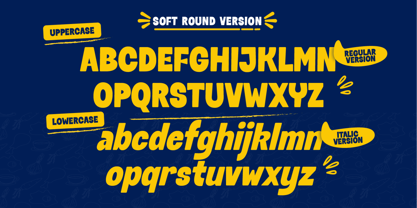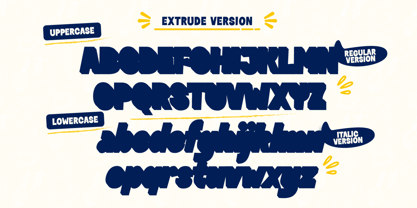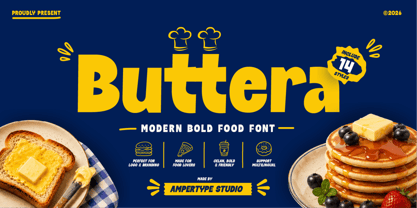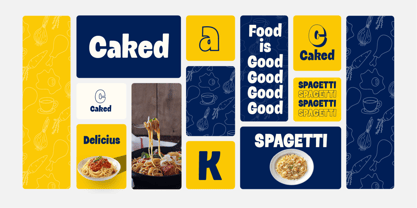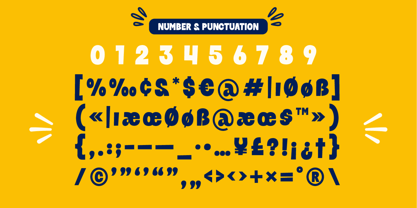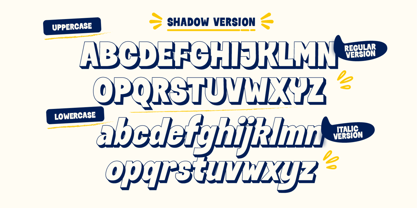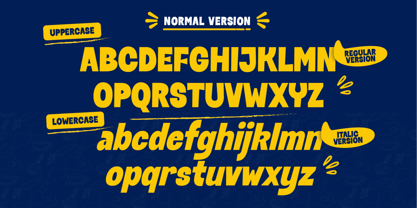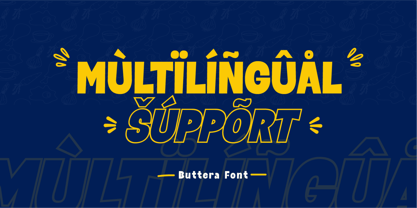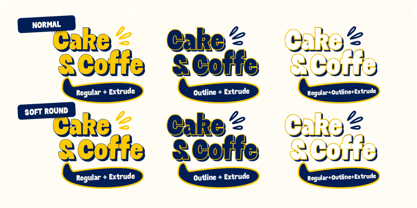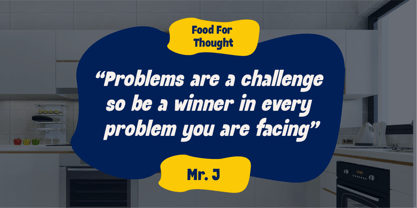
Buttera
BUTTERA is a bold and cheerful display font inspired by the warm, comforting world of food branding. With its rounded shapes, soft curves, and friendly personality, it instantly creates an inviting look that feels delicious, fun, and memorable.
Crafted for eye-catching headlines, BUTTERA is an excellent choice for restaurant logos, burger shops, cafés, bakeries, snack packaging, menus, food trucks, product labels, and social media promotions. Its chunky letterforms make every word stand out while maintaining excellent readability across both print and digital media.
Whether you're building a playful food brand or designing colorful promotional materials, BUTTERA delivers a fresh and appetizing visual style that helps your work leave a lasting impression.
Font Features
• Bold and friendly food-inspired display font
• Includes 14 font styles: Regular, Shadow, Outline, Soft Rounded, Extrude,Extrude Round, Outline Round, Italic, Italic Shadow, Italic Outline, Italic Soft Rounded,ItalicExtrude, Italic Extrude Round,
• Ideal for logos, branding, packaging, menus, posters, and advertising
• Perfect for burger shops, cafés, bakeries, restaurants, dessert brands, and beverage products
• Uppercase, lowercase, numerals, punctuation, and symbols included
• OpenType features for a smoother design workflow
• Multilingual support for dozens of Latin-based languages
Bring warmth, flavor, and personality into your next design project with BUTTERA—a bold display font created to make every brand look more delicious and unforgettable.